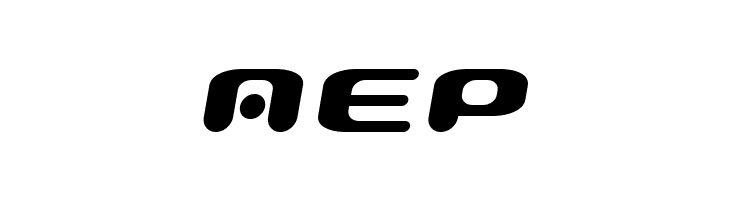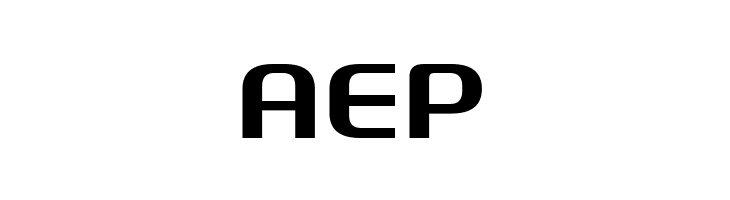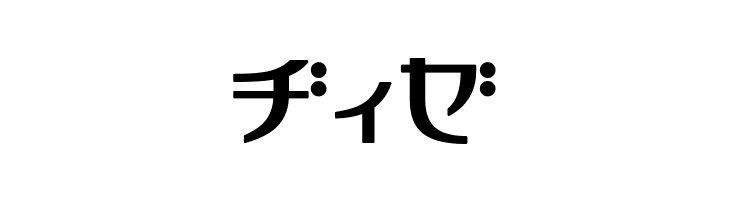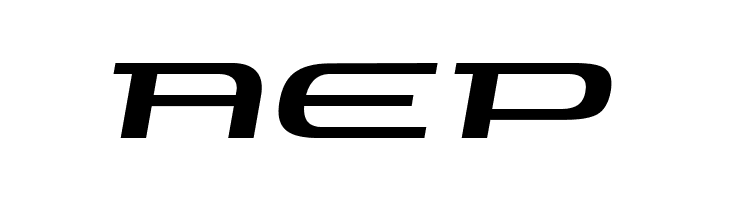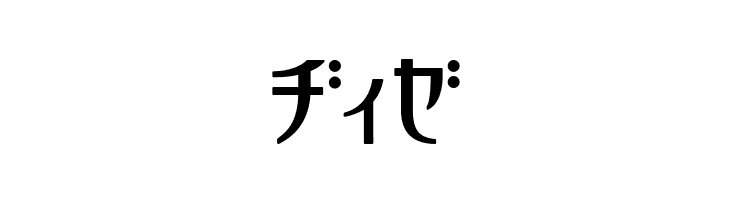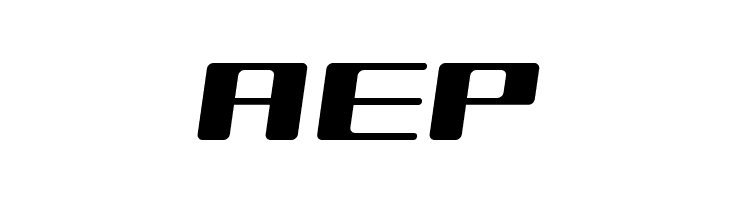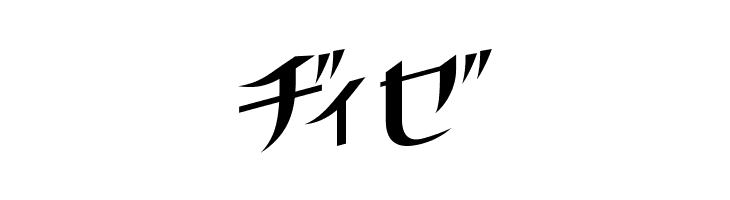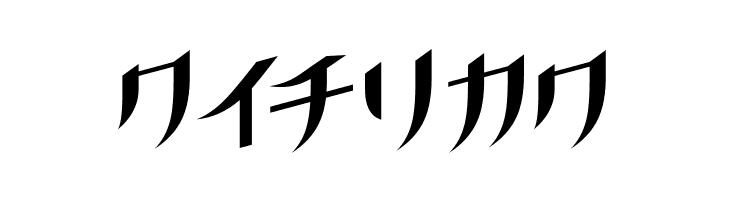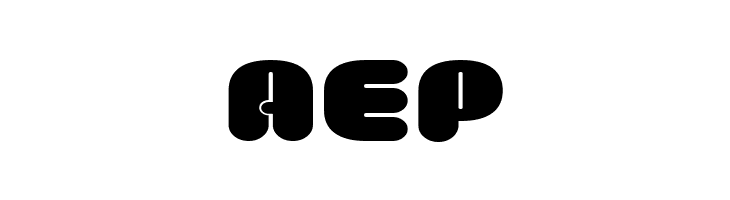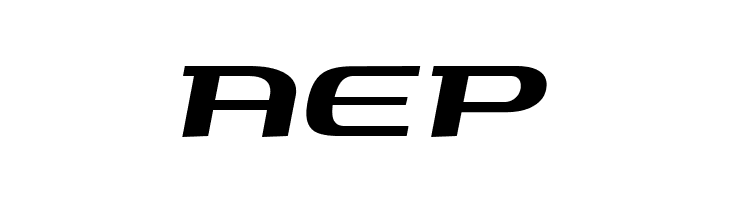
A bold, dynamic font with sharp, angular strokes and a modern calligraphic style.
A sleek, modern font with a futuristic and dynamic design.
A sleek, modern font with a futuristic and dynamic style.
A bold, rounded font with a playful and modern style.
A bold, futuristic font with dynamic, slanted characters.
A playful, modern font with rounded edges and a dynamic, slightly condensed style.
A bold, geometric font with a modern and minimalistic design.
A bold, modern sans-serif font with geometric shapes and consistent stroke width.
A modern, rounded, geometric font with a clean and uniform design.
A bold, retro-style font with thick, rounded edges and a playful design.